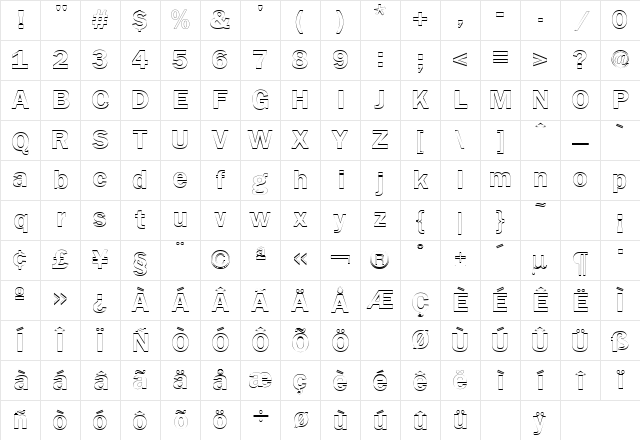
Franklin Gothic Demi Outline Regular
Design Context for Franklin Gothic Demi Outline
Franklin Gothic Demi Outline is built around its visual character rather than neutral utility - its distinctive forms are designed to make an impression at display sizes.
Font Pairing: Pair with a clean neutral sans-serif for body copy to let Franklin Gothic Demi Outline's character lead without overwhelming the composition.
Pro Tip: Use Franklin Gothic Demi Outline exclusively at display sizes - it was designed to be seen, not read at length. Let a neutral companion handle body copy.